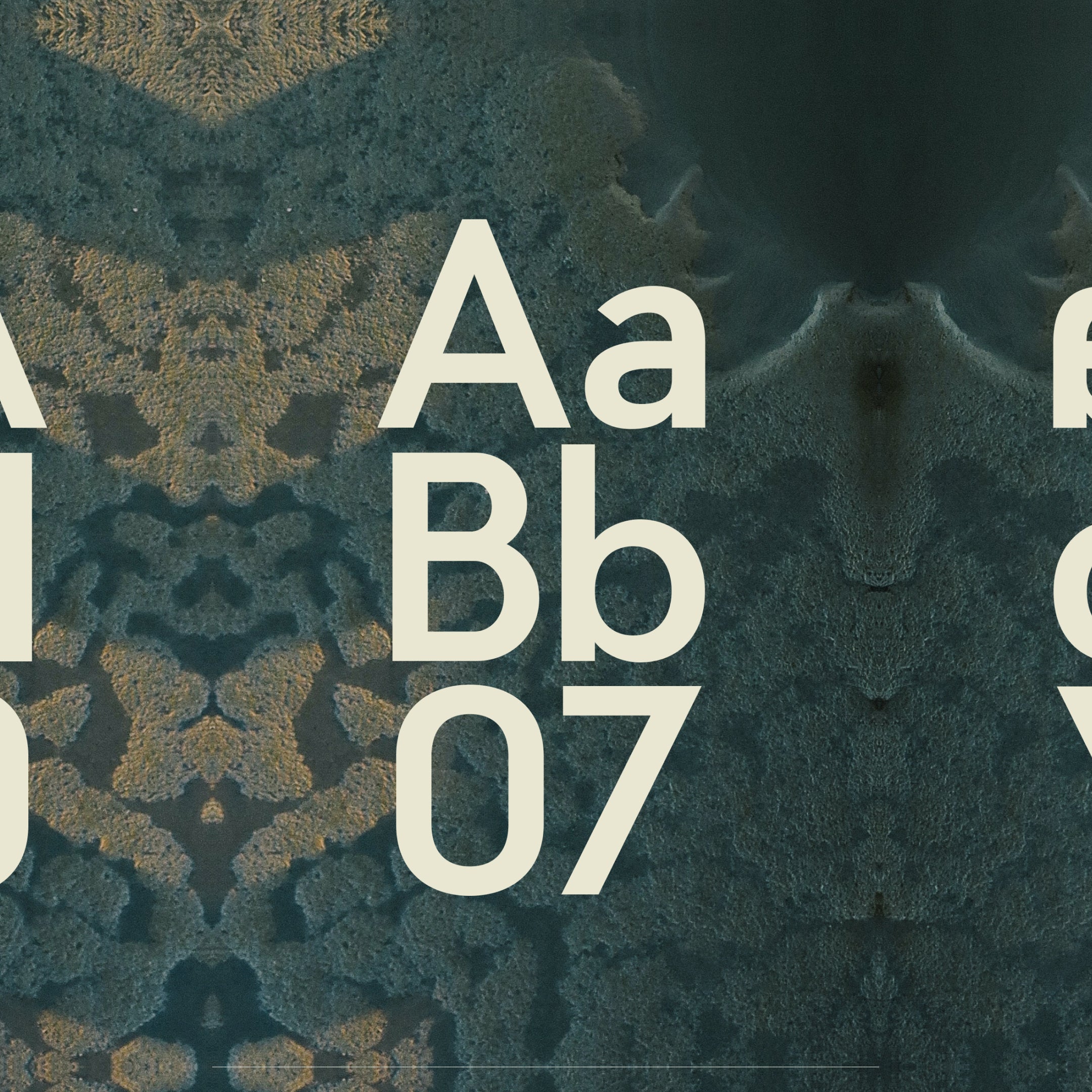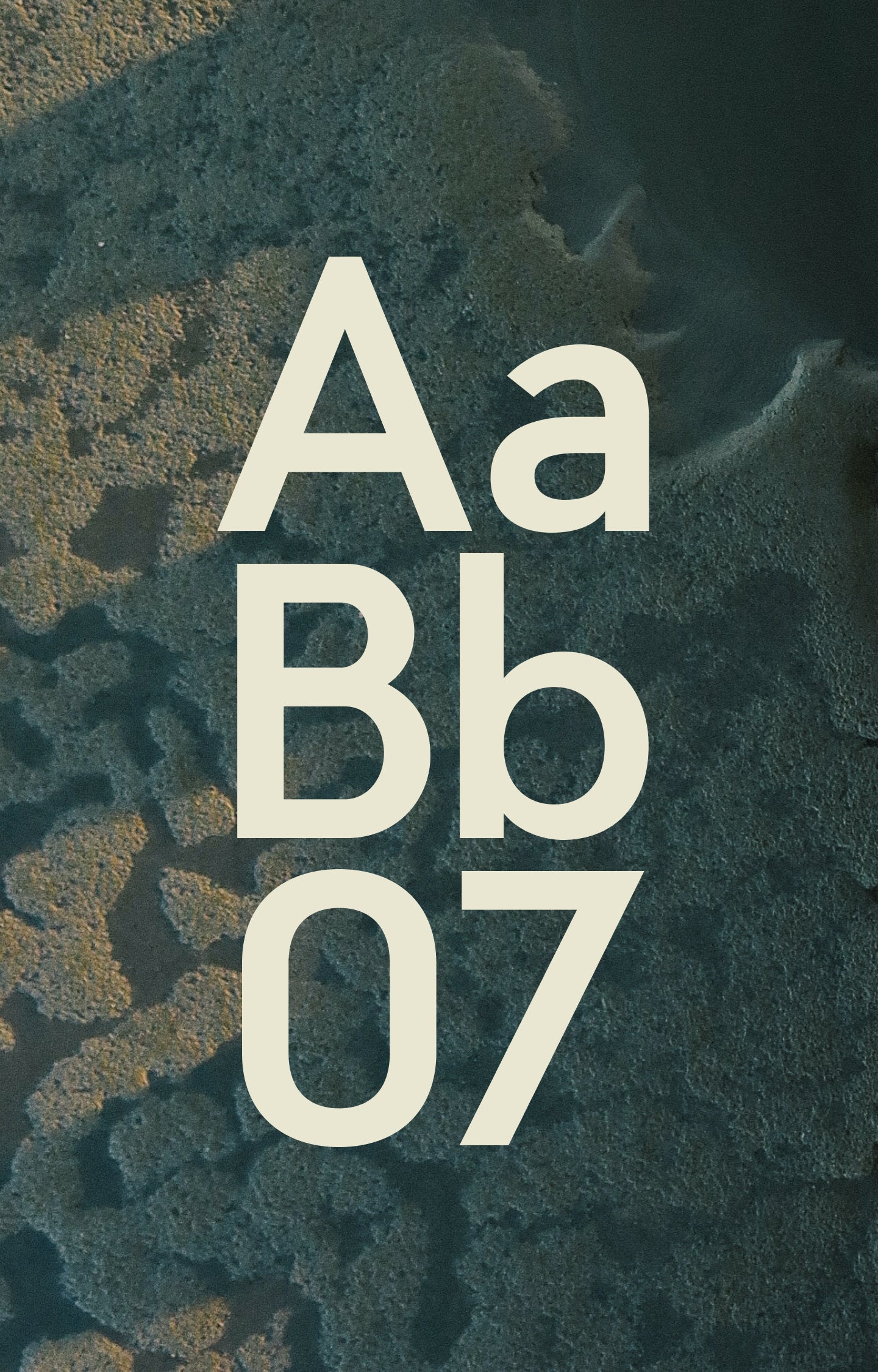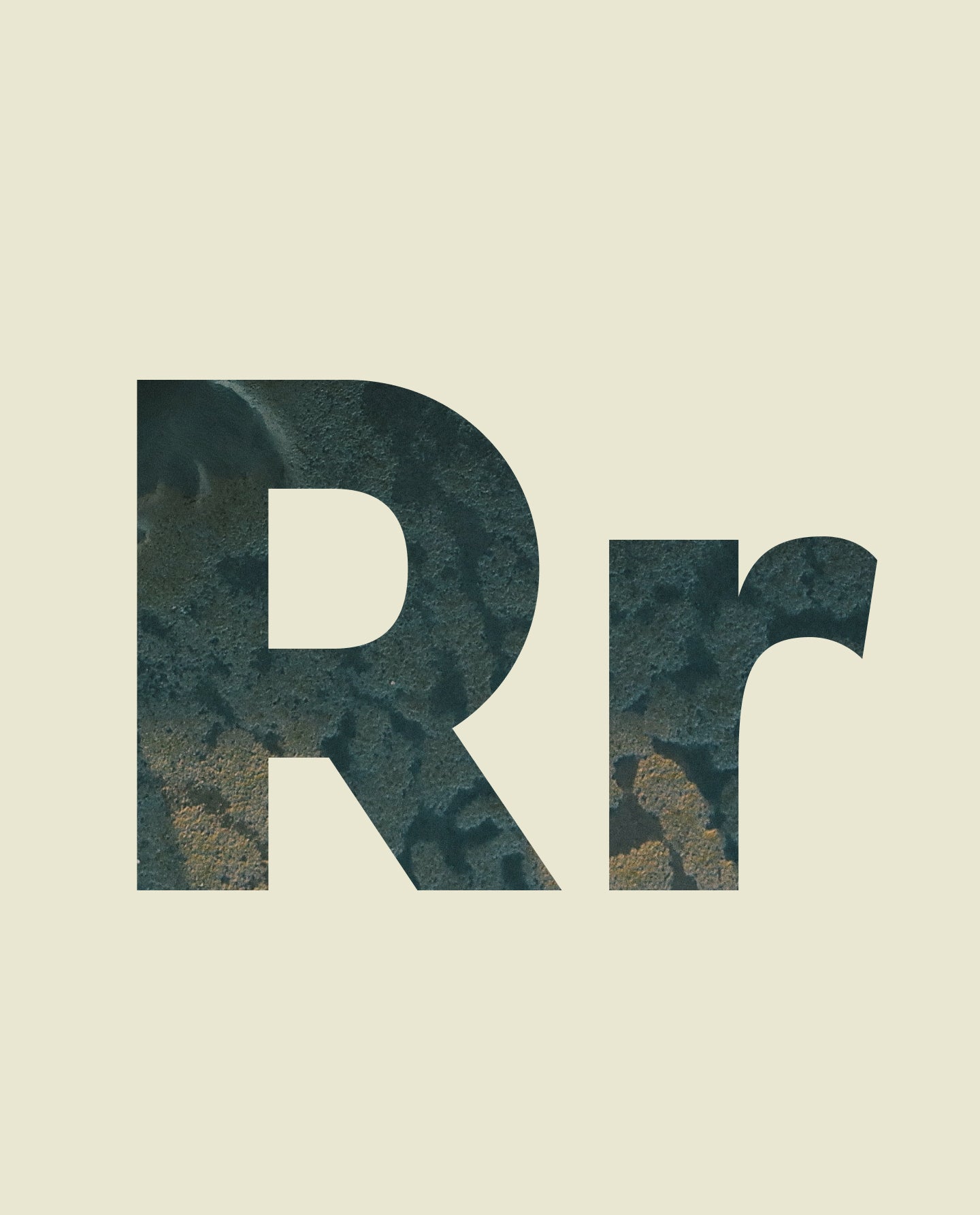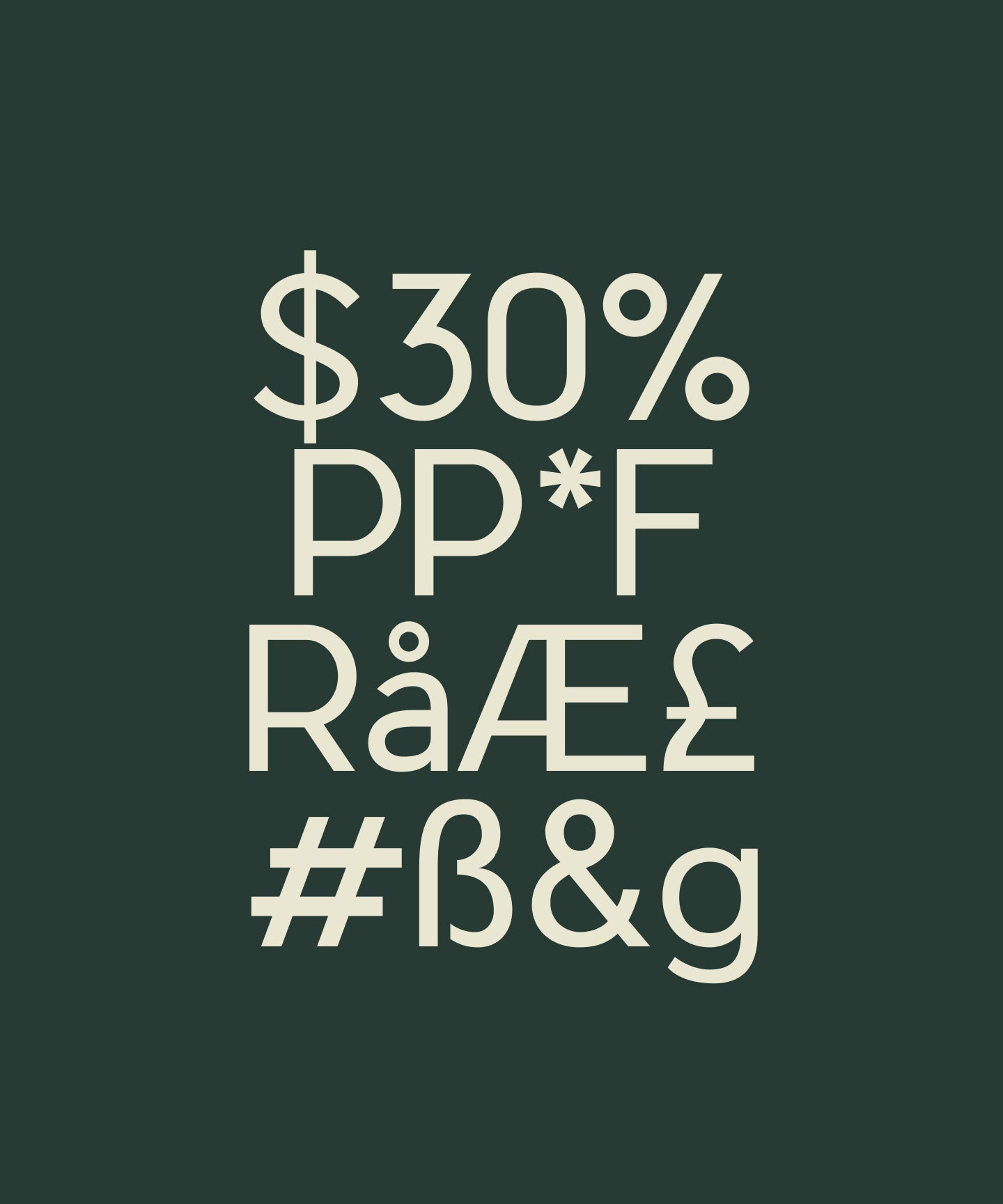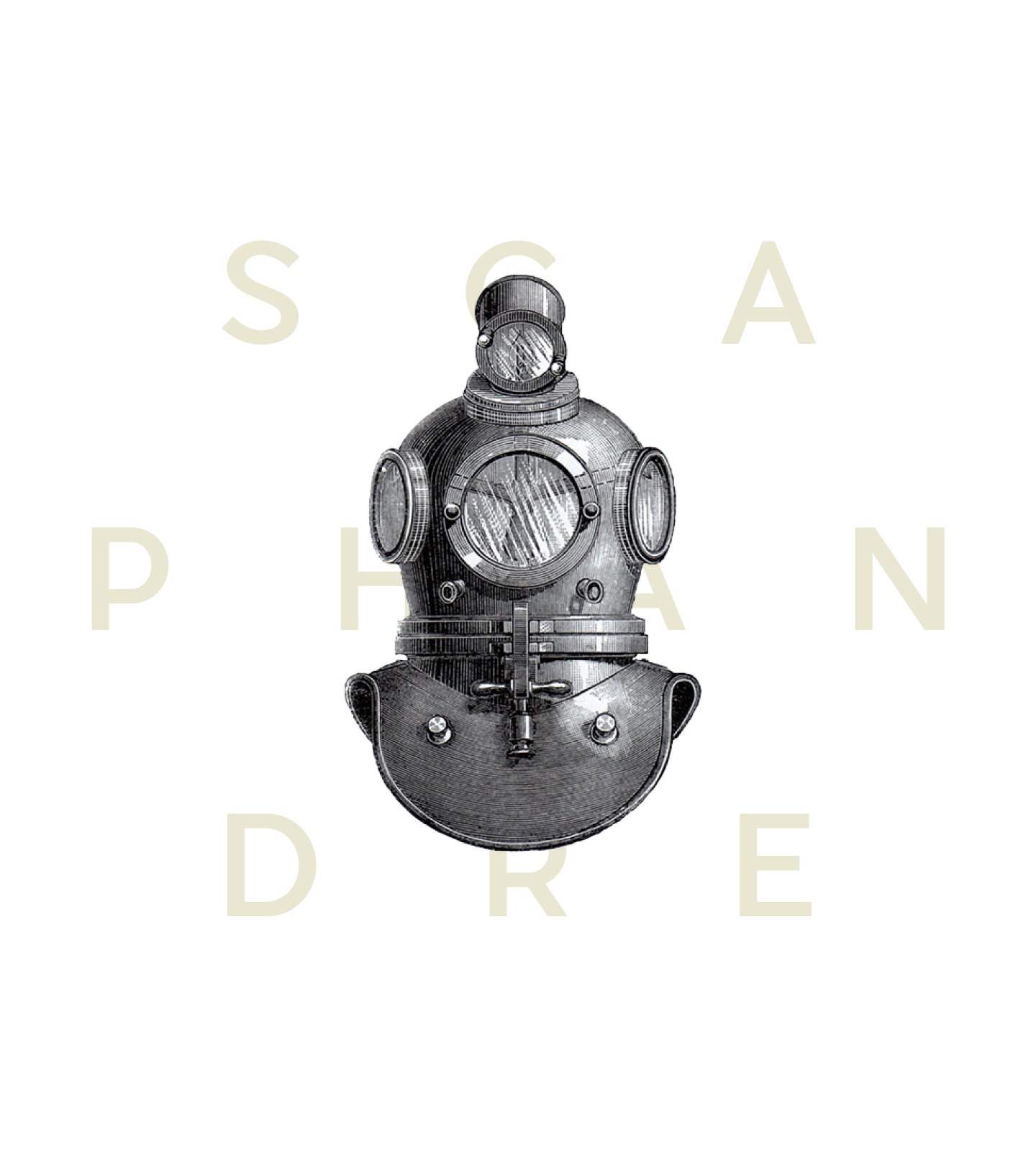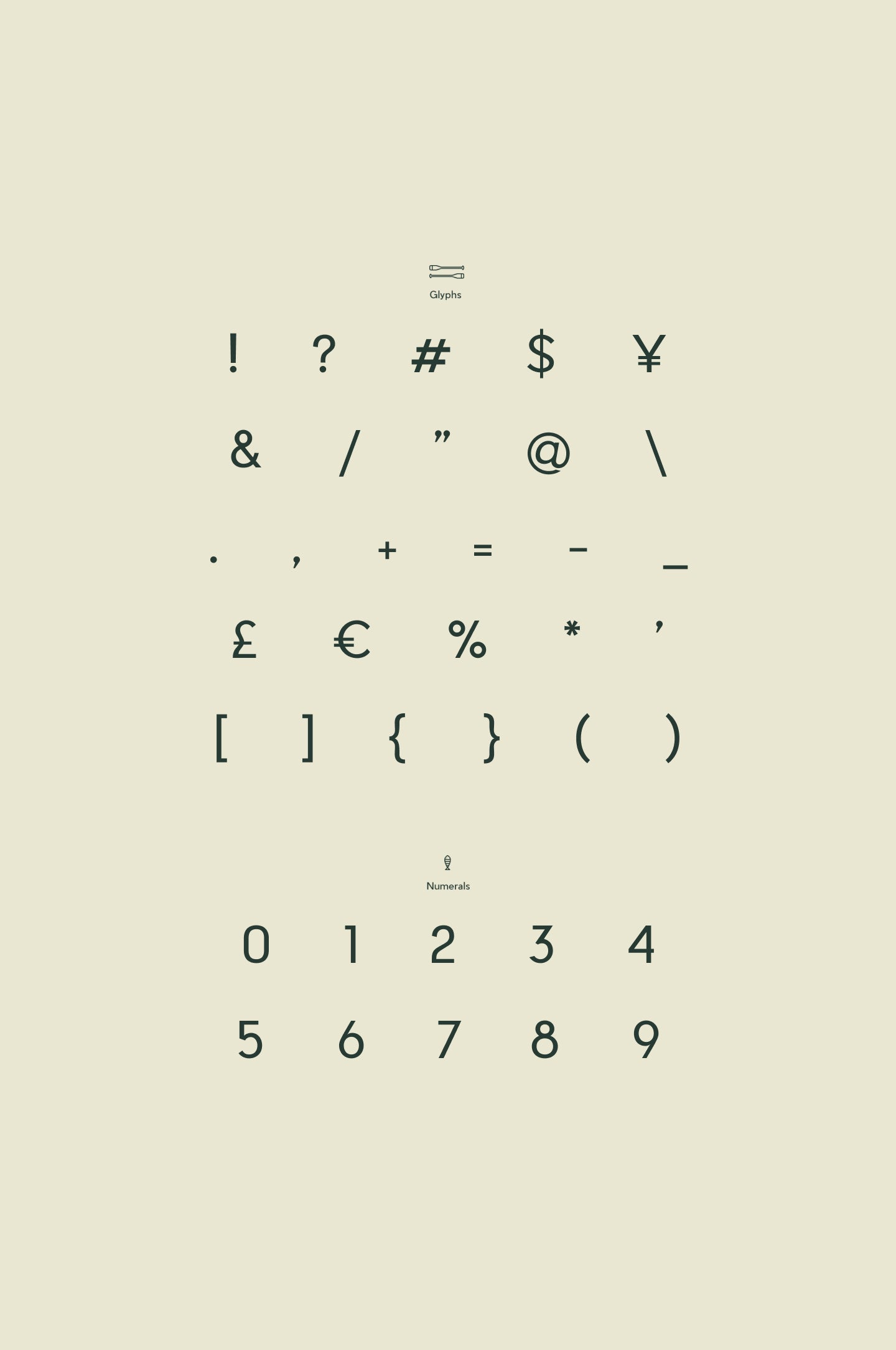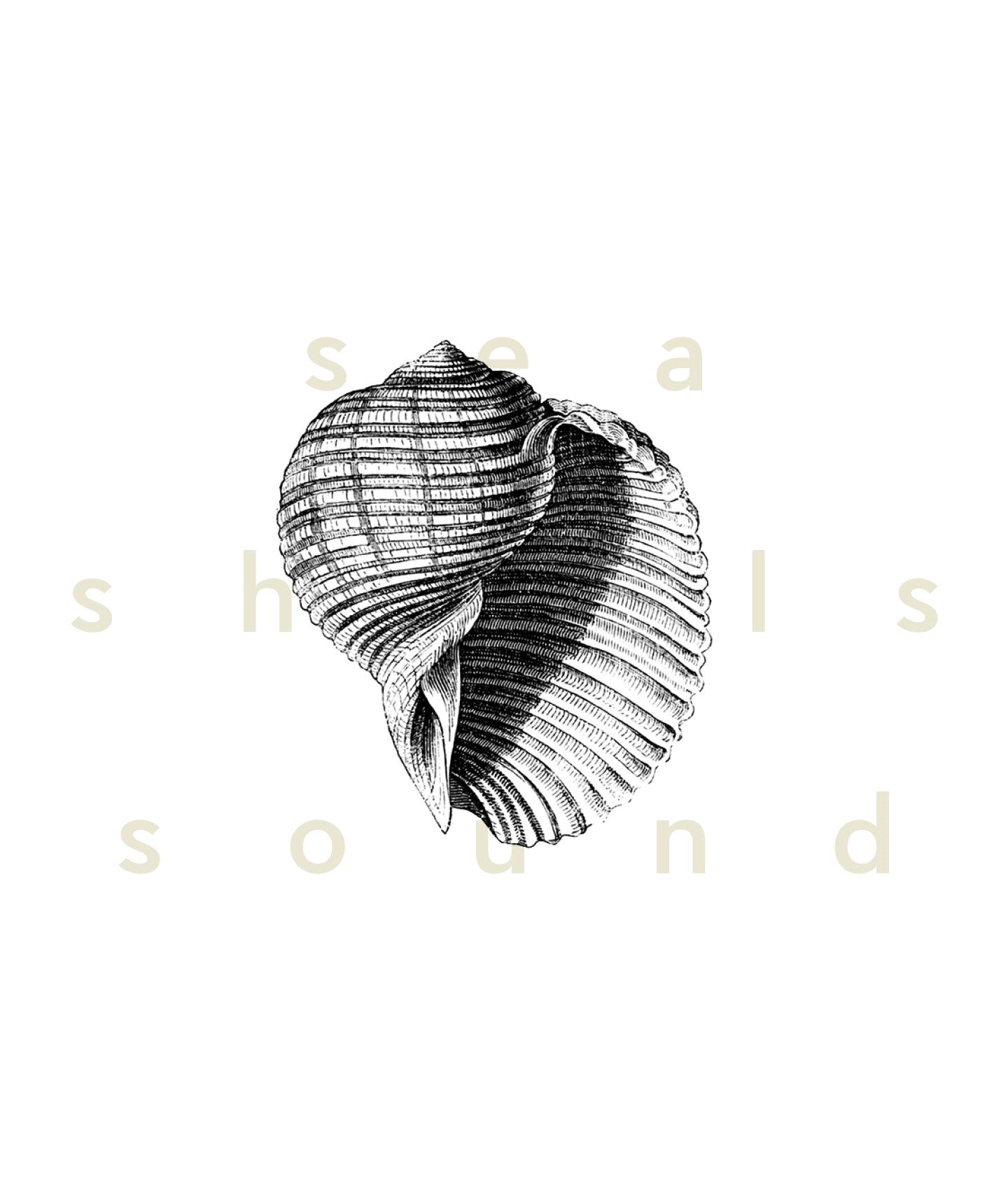
Pier Sans
Everyday type, elevated.
Pier Sans
Clean. Confident. Just a little off, in the best way.
Pier Sans
Pier is a modern Grotesk typeface designed for clarity, structure, and subtle individuality. Rooted in geometric principles but intentionally offset just enough to stand out, Pier delivers a unique typographic voice that’s both versatile and refined. It’s a sans-serif font that works hard at any size—from large, eye-catching headlines to compact, readable text blocks.
Pier Sans
What sets Pier apart from other geometric sans fonts is its thoughtful asymmetry and micro-details that come to life the longer you look. This is not another sterile modernist—Pier brings personality into precision. The forms feel clean and constructed, but never cold. Its slightly off-beat curves and angles add warmth, making it ideal for both brand identities and editorial design, UI/UX interfaces, web typography, and product packaging. With excellent legibility at small sizes and strong visual presence in large-scale use, Pier is truly built for everyday design applications. Whether you're crafting a minimalist layout, designing a user interface, or developing a dynamic logo system, Pier adapts without losing its unique voice. If you're searching for a modern grotesk font that’s functional, distinctive, and full of subtle charm, Pier should be your next go-to.
Everyday type, elevated.
Pier is a modern and structured Grotesk with interesting details that give this font a unique personality. The idea was to create a slightly off geometric font that would look as good big or very small. It was designed to fit your everyday designs and text needs.